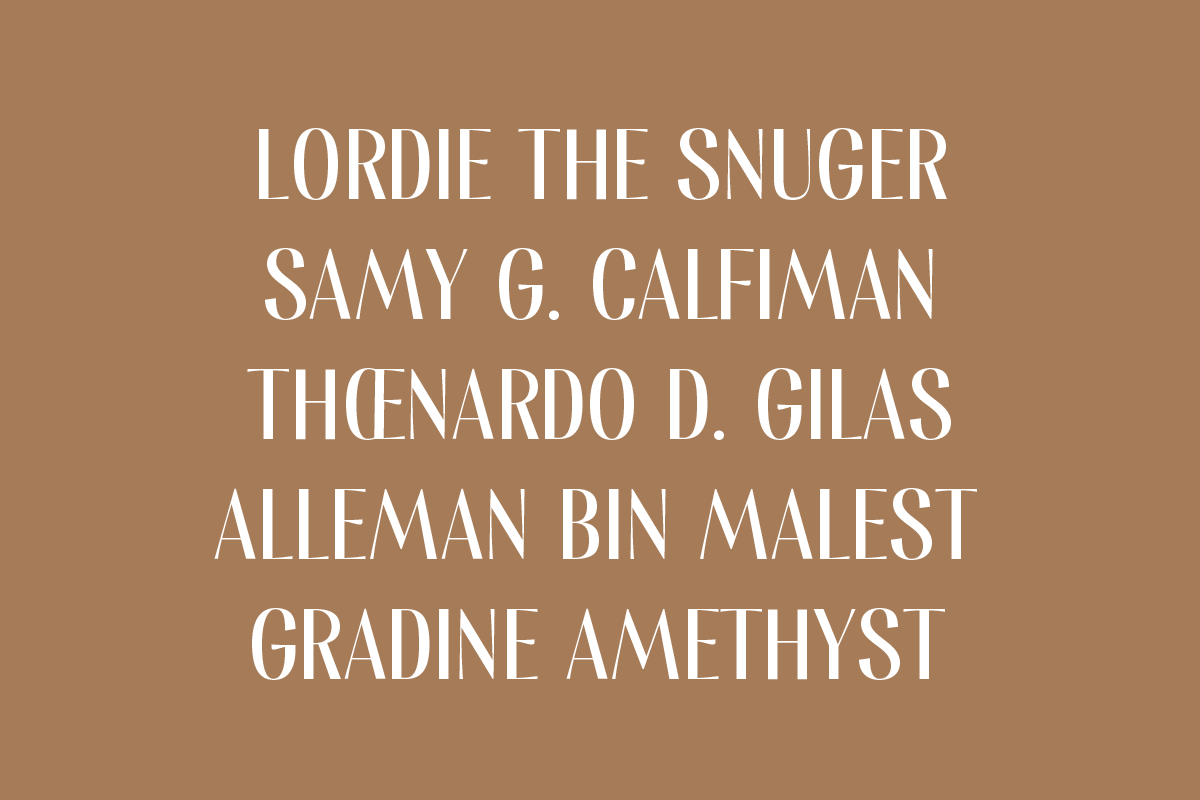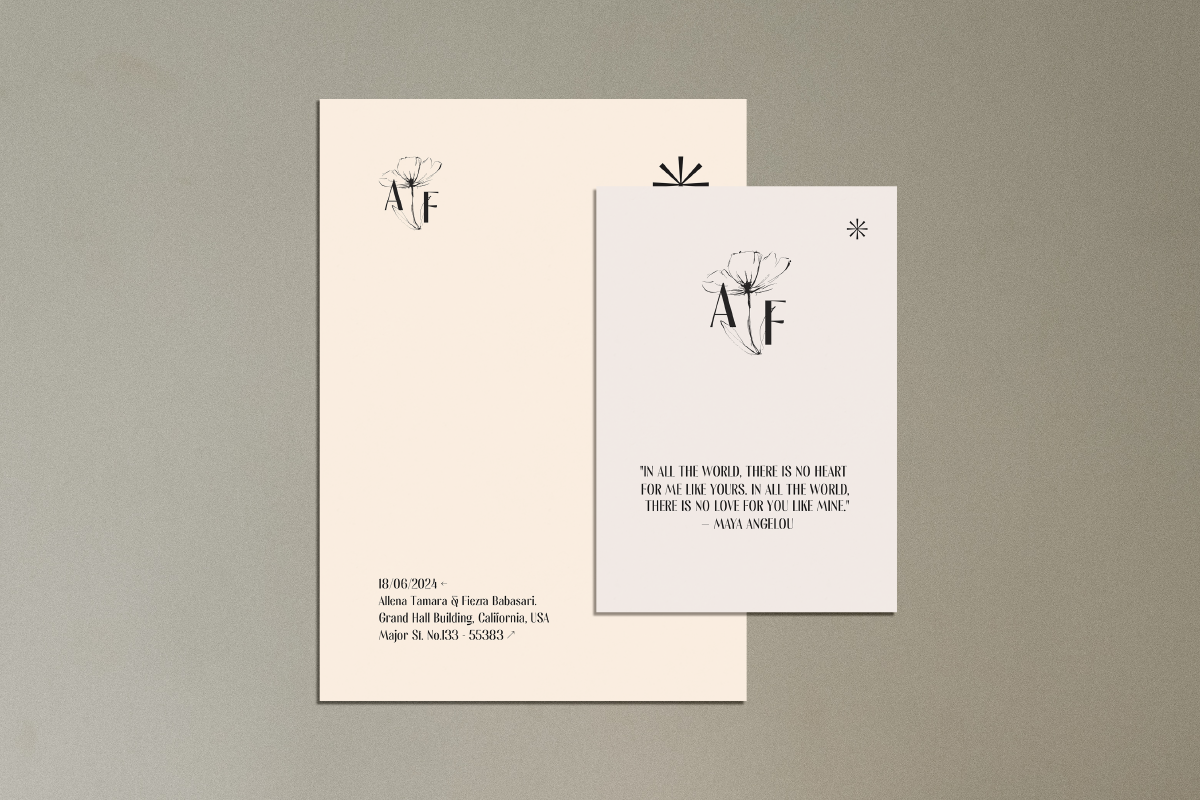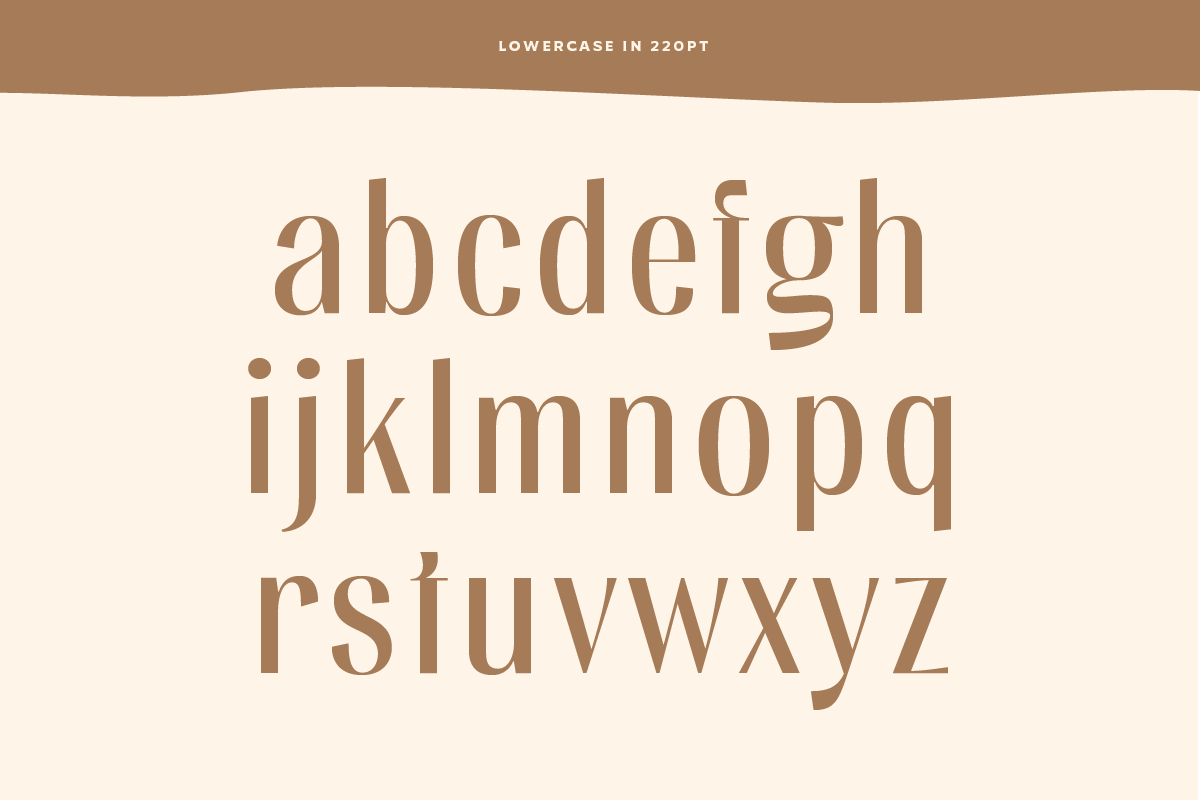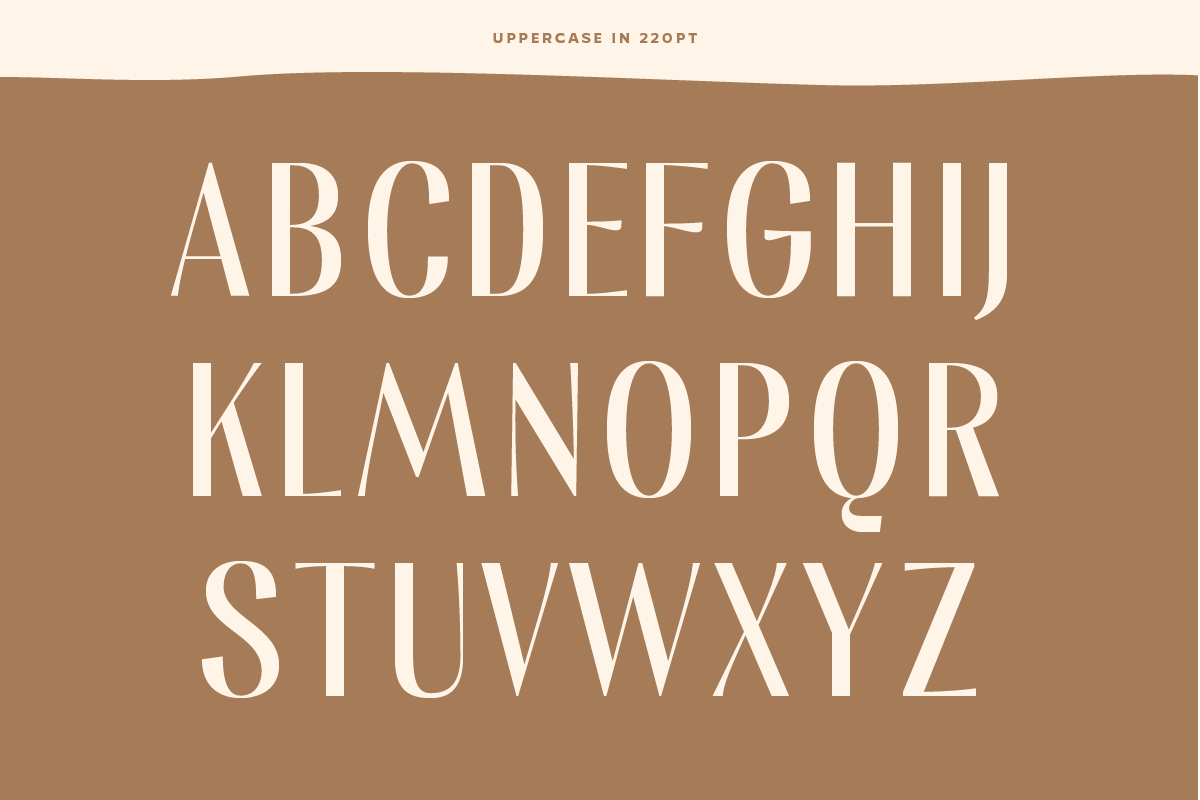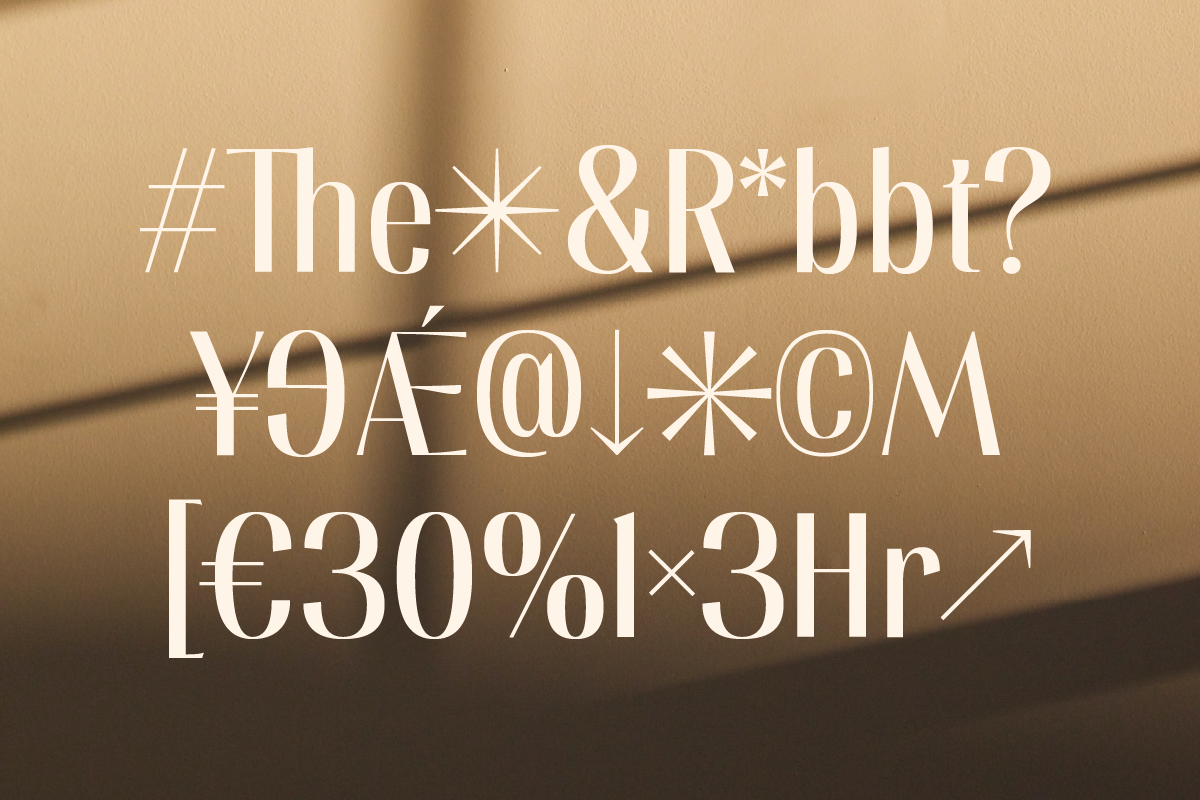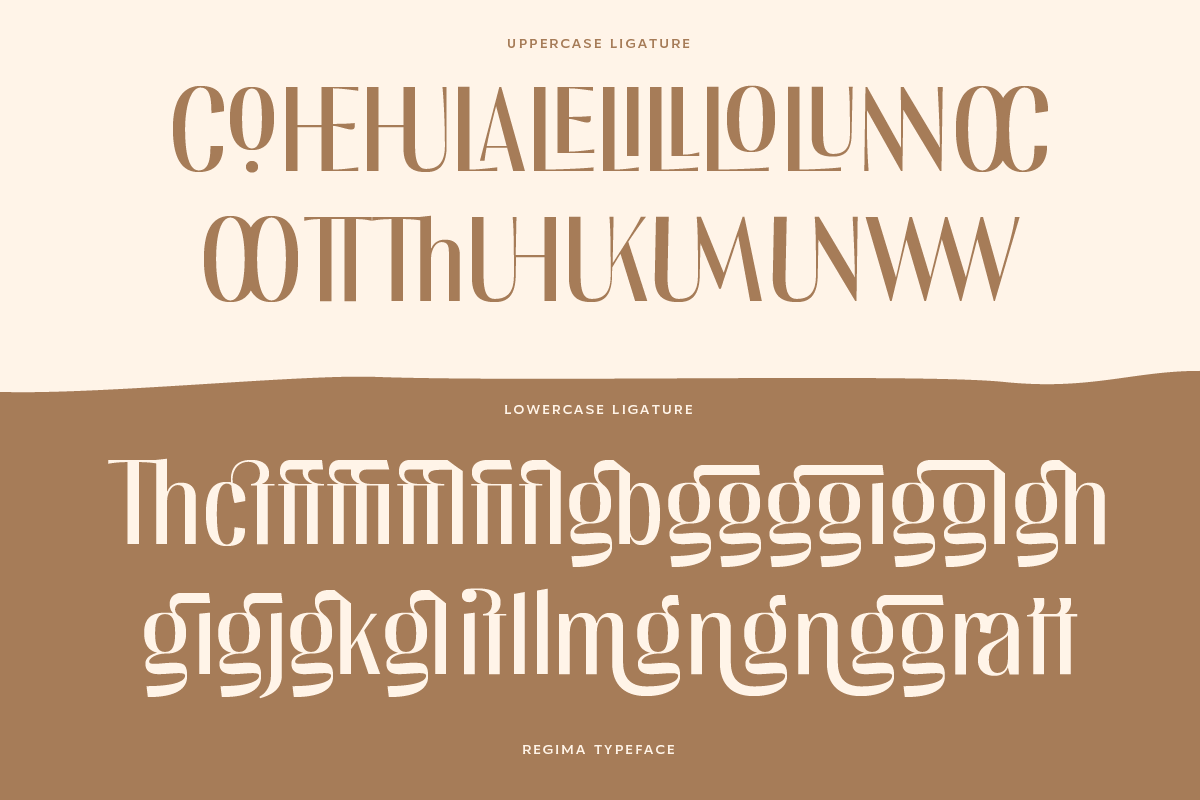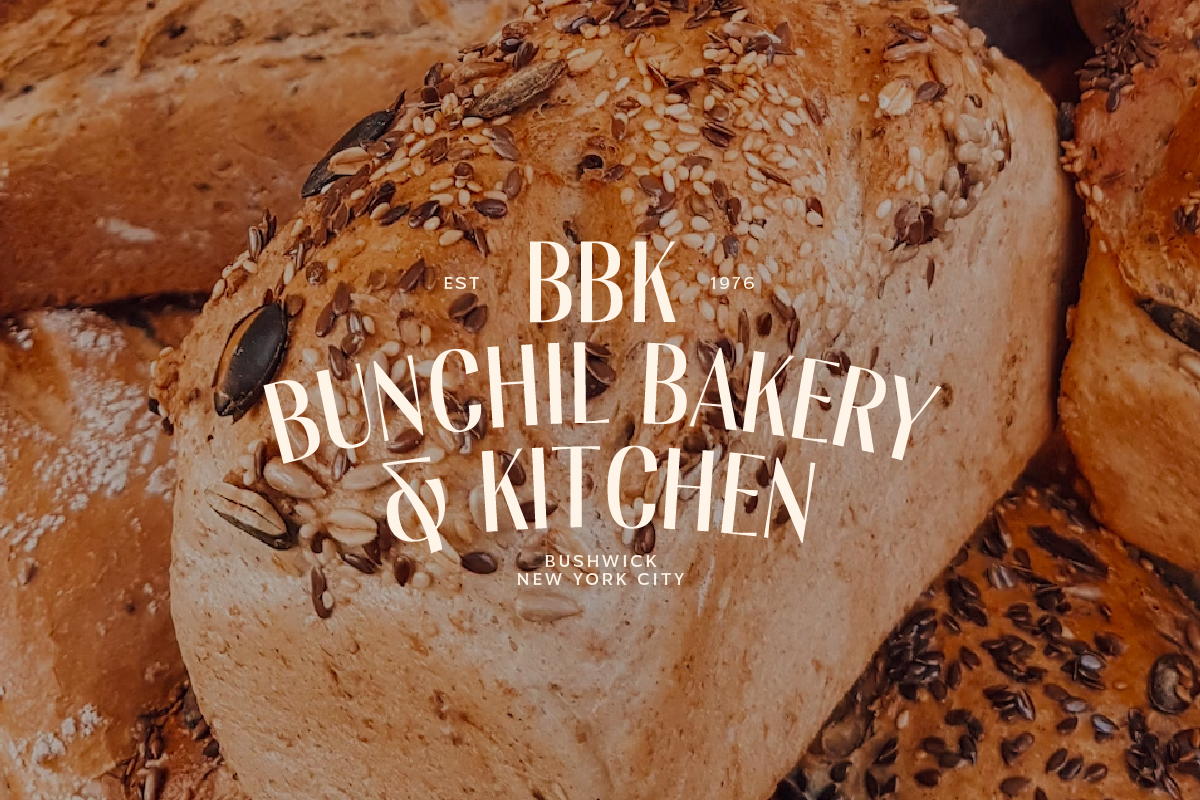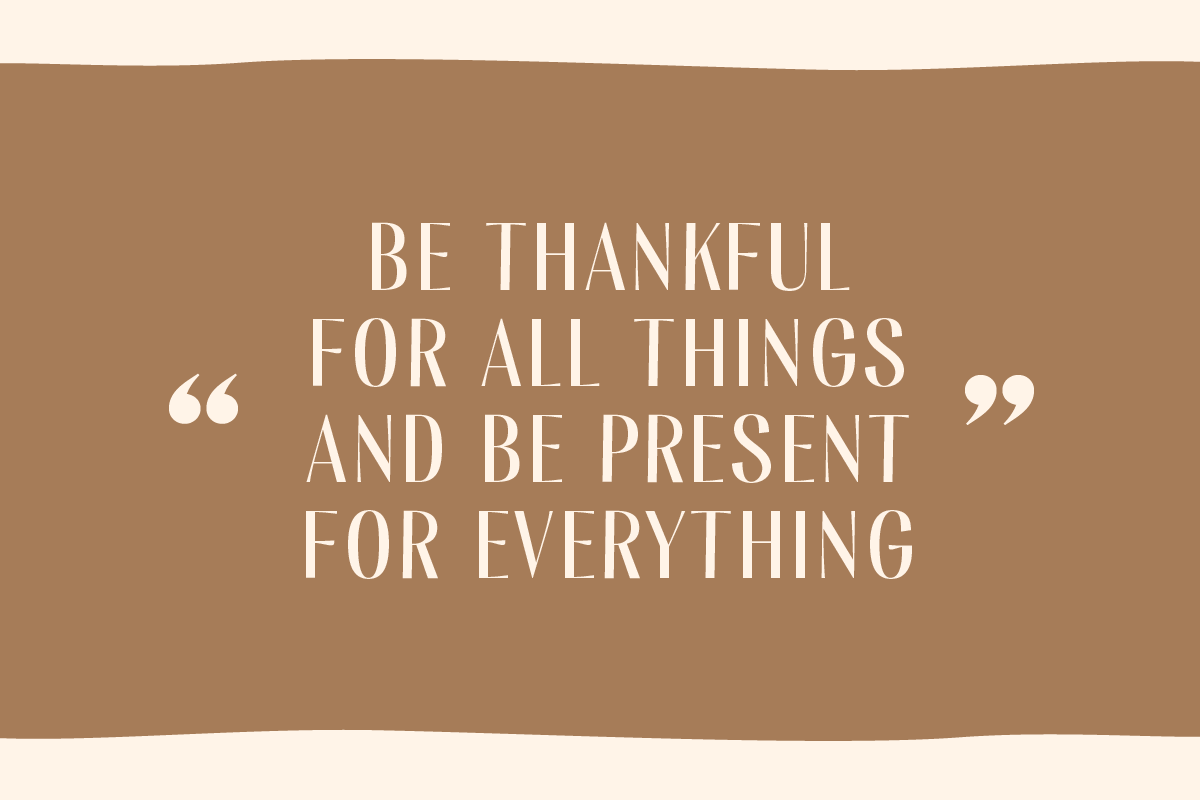
Regima Minmialist Display Font
Regima, a minimalist display font, perfect for logotype, branding, editorial and etc. Regima is a sleek and modern minimalist display font that is tailor-made for logotypes, branding, editorial designs, and more. With its clean lines and simple yet sophisticated design, Regima exudes an air of elegance and professionalism.